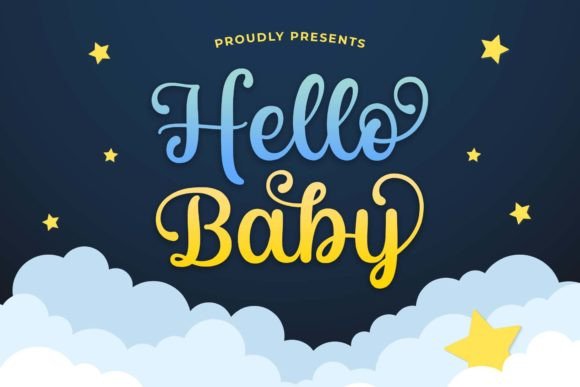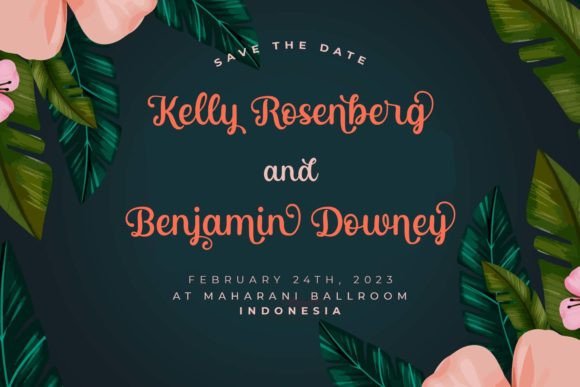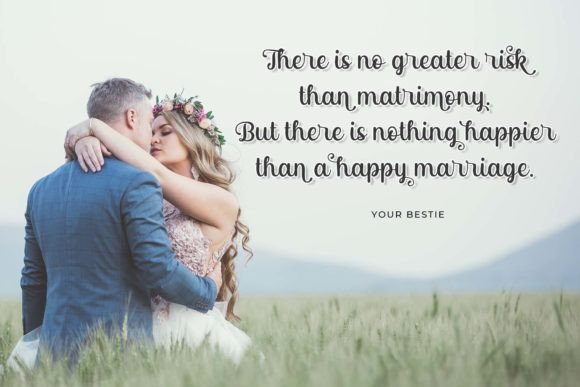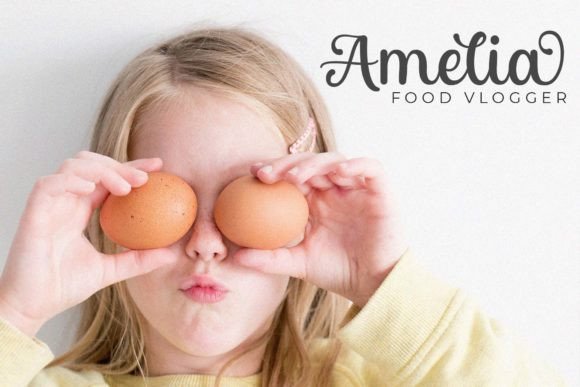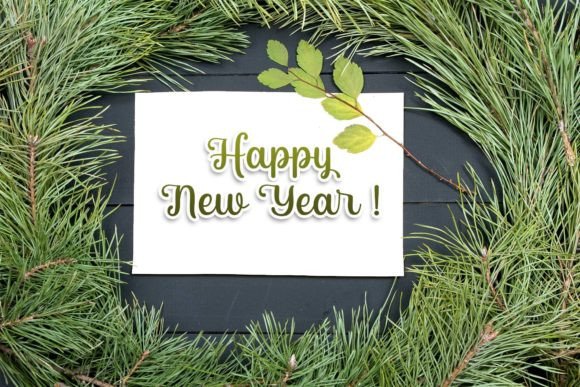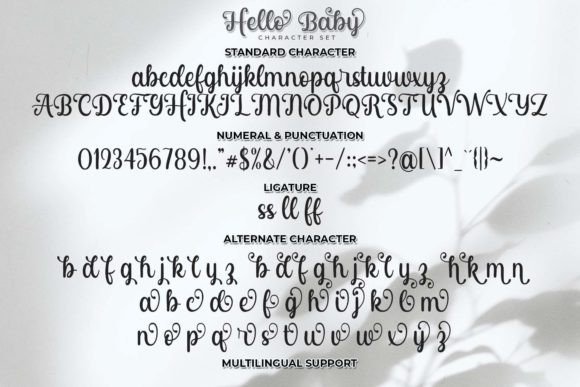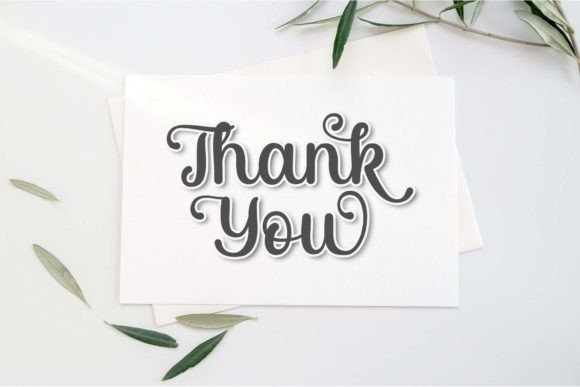
Hello Baby Font
About Hello Baby Font
Hello Baby is a beautiful and well-balanced script font designed to bring elegance and style to all your creative projects. With its smooth curves and graceful letterforms, this font adds a sophisticated touch to everything from wedding invitations to fashion branding. Whether you are designing for print or digital media, Hello Baby is an excellent choice to elevate your work.
Smooth Curves for a Refined Look
The defining feature of Hello Baby is its smooth and flowing curves. Every character has been carefully crafted to create a harmonious and stylish script. This makes your text look polished and professional, even with minimal effort.
The font’s clean lines and balanced proportions allow it to stand out while maintaining readability. When you use Hello Baby in headlines, logos, or quotes, it draws attention with its elegance and modern charm.
Perfect for Fashion Branding and Editorial Designs
Hello Baby is especially suited for fashion-related projects. Its sleek script style feels trendy and timeless, making it ideal for luxury branding, product packaging, and editorial layouts.
If you design for magazines, lookbooks, or advertising campaigns, Hello Baby will help you create a premium and cohesive look. It pairs well with minimalist layouts and muted color palettes, enhancing the sophistication of your design.
Beautiful Wedding Invitations and Stationery
For wedding designers, Hello Baby is a perfect match. Its romantic and graceful appearance brings a sense of warmth and intimacy to invitations, RSVP cards, and save-the-dates.
Whether you prefer classic white stationery or modern watercolor designs, Hello Baby will complement your aesthetic. The font’s smooth curves feel welcoming and personal, making it easy to create memorable wedding materials.
PUA Encoded for Extra Creative Freedom
Hello Baby is fully PUA encoded, which means you can access all the beautiful alternates and ligatures without any special software. This feature gives you endless ways to customize your text.
You can switch between different styles of letters to create unique word shapes or add extra swashes and flourishes for dramatic effect. With PUA encoding, you get complete control over the details of your design.
Easy to Use and Highly Compatible
The font also includes multilingual support, numerals, punctuation, and special characters, making it a flexible choice for global projects.
Elevate Your Designs with Hello Baby
Whether you’re designing a fashion brand, creating wedding invitations, or producing editorial layouts, Hello Baby will help you achieve a refined and stylish result. Its smooth curves, balanced letterforms, and elegant character make it a must-have font in any designer’s collection.
Experience the beauty of Hello Baby and see how it can transform your creative work into something truly unforgettable.